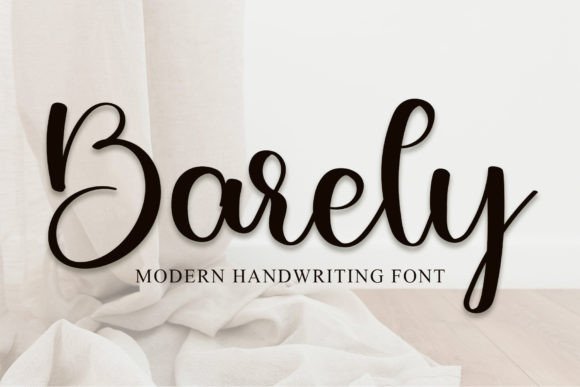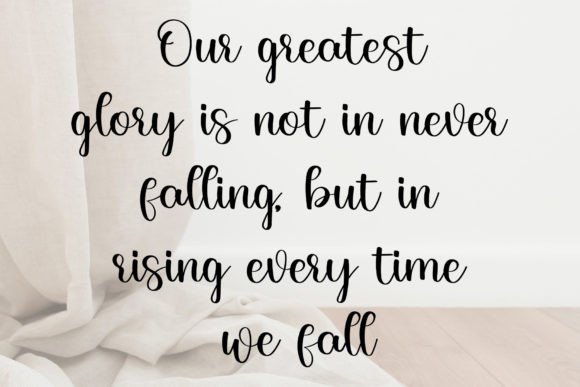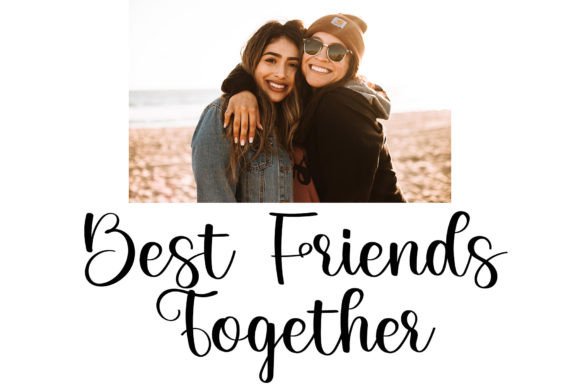
Barely
About Barely
Barely is a sweet and cursive handwritten font. This gentle font will look gorgeous on a variety of design ideas. It will add a joyful and romantic touch to each of your projects!